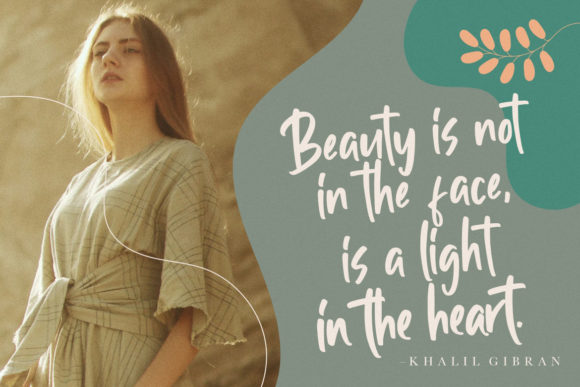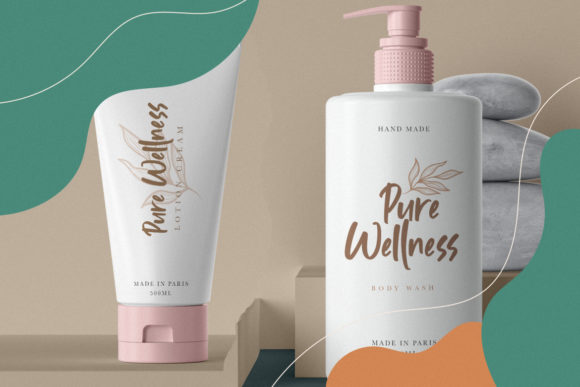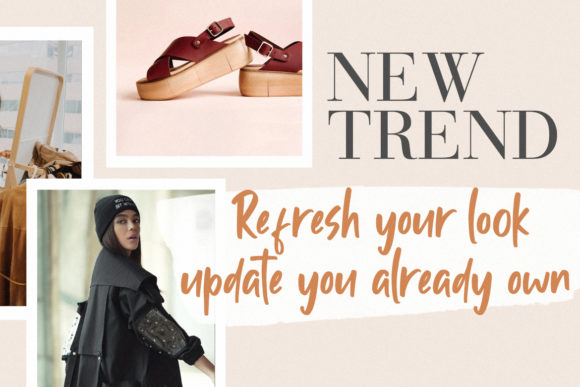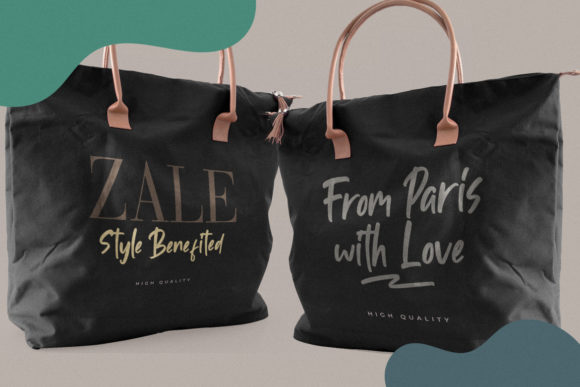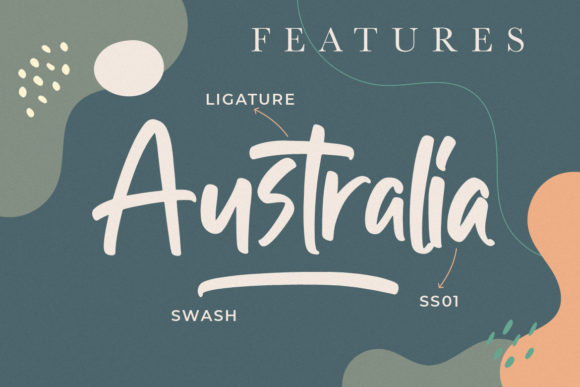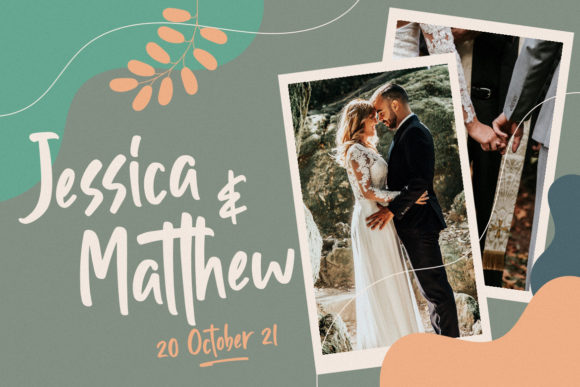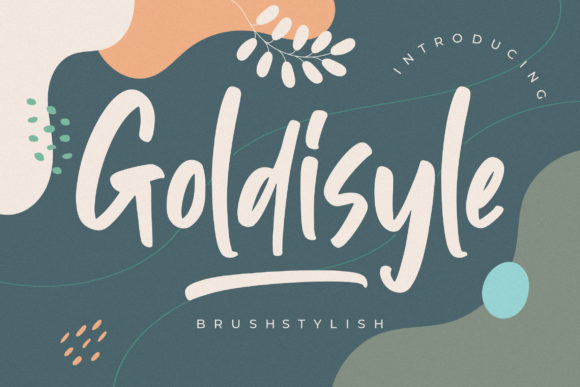
Introducing Goldisyle Font: Elevate Your Designs with a Touch of Elegance
Are you tired of using the same old fonts in your designs? Look no further than Goldisyle Font, a stunning brushed display font that adds a touch of sophistication and elegance to any project. With its relaxed and natural stroke movements, Goldisyle is perfect for designers and crafters looking to create unique and eye-catching designs.
What Makes Goldisyle Font Special?
Goldisyle Font is a beautifully crafted font that features a range of characteristics that set it apart from other fonts. Here are just a few reasons why Goldisyle is a must-have for any designer or crafter:
- Brushed and Stylish: Goldisyle has a unique brushed look that gives it a stylish and sophisticated feel. The font’s relaxed and natural stroke movements make it perfect for creating designs that are both elegant and eye-catching.
- PUA Encoded: Goldisyle is PUA (Private Use Area) encoded, which means that you can access all of the glyphs and swashes with ease. This makes it easy to customize your designs and add your own personal touch.
The Benefits of Using Goldisyle Font
So why should you choose Goldisyle Font for your next design project? Here are just a few benefits of using this amazing font:
- Adds a Touch of Elegance: Goldisyle adds a touch of elegance and sophistication to any design, making it perfect for projects where you want to make a statement.
- Versatile: Goldisyle is a versatile font that can be used for a wide range of design projects, from logos and branding to invitations and packaging.
- Unique: Goldisyle has a unique look that sets it apart from other fonts. By using Goldisyle, you can create designs that are truly one-of-a-kind.
How to Use Goldisyle Font in Your Designs
Using Goldisyle Font in your designs is easy. Here are a few tips to get you started:
- Pair it with Other Fonts: Goldisyle looks great when paired with other fonts. Try pairing it with a clean sans-serif font for a bold and eye-catching look.
- Experiment with Swashes: Goldisyle’s PUA encoding makes it easy to access a range of swashes and glyphs. Experiment with different swashes to add a personal touch to your designs.
- Use it for Headings: Goldisyle is perfect for headings and titles. Use it to add a touch of elegance and sophistication to your designs.
Who is Goldisyle Font Perfect For?
Goldisyle Font is perfect for a wide range of designers and crafters, including:
- Graphic Designers: Goldisyle is a must-have for any graphic designer looking to add a touch of elegance and sophistication to their designs.
- Crafters: Goldisyle is perfect for crafters who want to create unique and eye-catching designs for their projects.
- Small Business Owners: Goldisyle is a great choice for small business owners who want to create professional-looking designs without breaking the bank.
Goldisyle Font is a stunning brushed display font that adds a touch of elegance and sophistication to any design. With its relaxed and natural stroke movements, PUA encoding, and ease of use, Goldisyle is perfect for designers and crafters looking to create unique and eye-catching designs. Whether you’re a graphic designer, crafter, or small business owner, Goldisyle is a must-have font that is sure to elevate your designs to the next level.